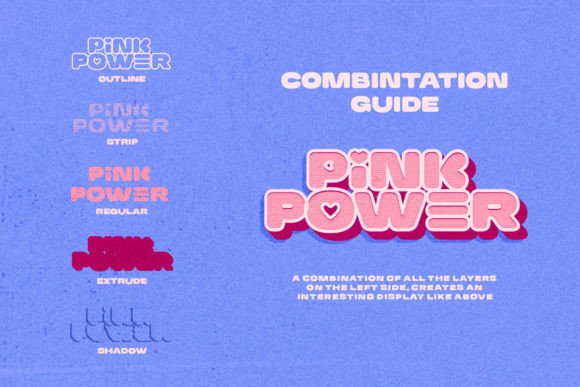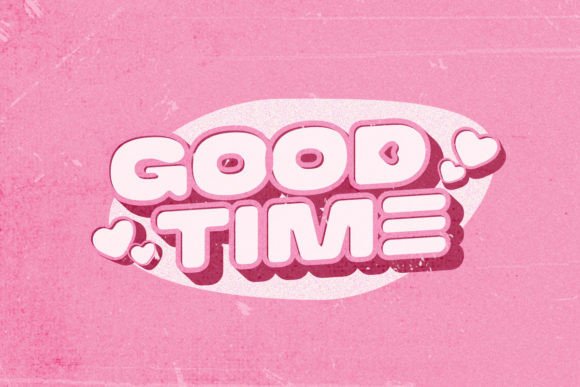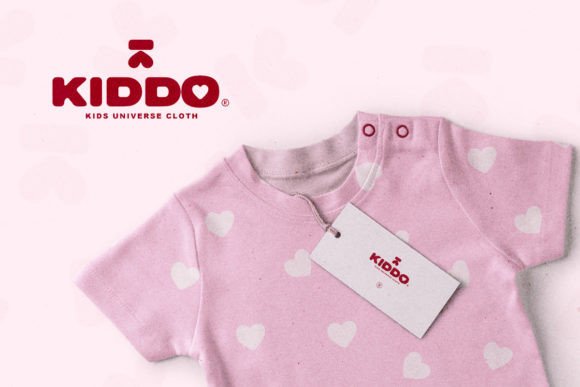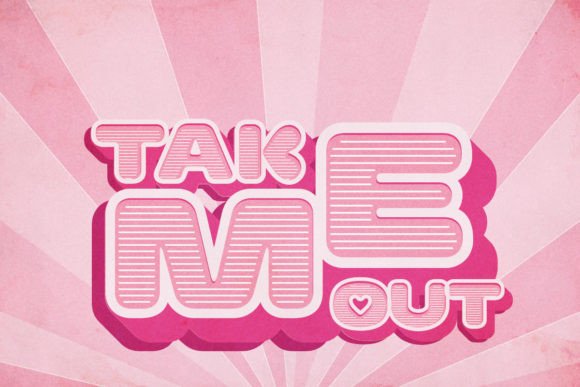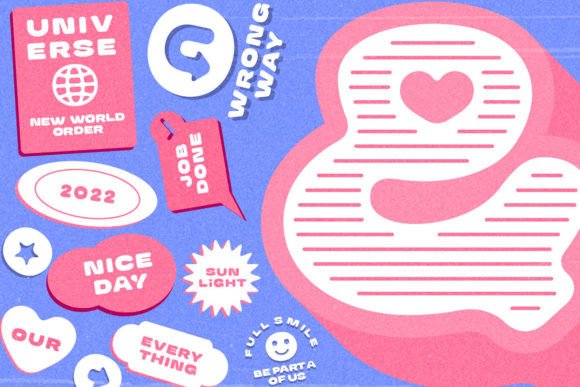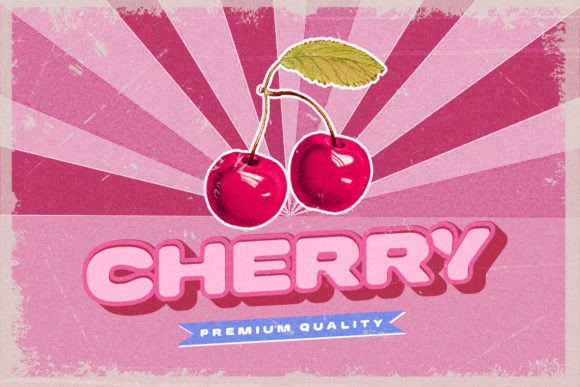
Introduction to Pink Power Font
Have you ever found yourself in the midst of a creative project, struggling to find the perfect font to bring your vision to life? I know I have! As a designer, I’ve spent countless hours scouring the web for that one elusive font that will elevate my design from good to great. And then, like a ray of sunshine on a cloudy day, I stumbled upon the Pink Power Font.
This stunning 3D retro font sans-based is a game-changer for any design project. With its layered styles and icons, the Pink Power Font offers a unique and eye-catching look that’s sure to grab attention. Whether you’re working on a poster, branding, merchandise, or any other retro-style project, this font is a valuable resource that’s sure to deliver high-quality results.
Key Features of Pink Power Font
- Unique Pink Power Font design with a bold, eye-catching aesthetic, perfect for creative projects and designs.
- Perfect for use in various creative projects, such as logos, business cards, posters, and more, due to its modern and trendy design.
Honest Review: Pink Power Font
As a designer, I’m always on the lookout for unique and versatile design resources to elevate my creative projects. Recently, I had the chance to try out the Pink Power Font, and I’m excited to share my honest review with you.
What works well: ✨ The font is incredibly bold and eye-catching, making it perfect for creating attention-grabbing headlines and titles. The high-quality design ensures that it looks great on both digital and print materials. I also appreciate the fact that it comes with a transparent background, allowing for seamless integration with other design elements.
What’s not so great: ⚠️ While the font is free to download, the limited character set may be a drawback for some designers. Additionally, the font may not be suitable for small text sizes, as the boldness can become overwhelming.
Overall impression: I’m really impressed with the Pink Power Font, and I can see it being a valuable addition to any designer’s toolkit. Its bold, high-quality design makes it perfect for a wide range of creative projects, from marketing materials to social media graphics. If you’re looking for a free design resource that packs a punch, I highly recommend giving the Pink Power Font a try.
- Perfect for bold, eye-catching headlines and titles
- High-quality design for digital and print materials
- Limited character set
- Not suitable for small text sizes
Tips for Getting the Most Out of the Pink Power Font
Use the Pink Power Font on a transparent background to create a striking visual effect. Experiment with different font sizes and styles to add depth and interest to your design.
The Pink Power Font is ideal for social media graphics, branding materials, and promotional materials. Its high-quality design makes it a great addition to any creative project.
Q: Is the Pink Power Font high quality and suitable for professional use?
Yes, the Pink Power Font is a high-quality design resource that is suitable for professional use. The font has been carefully crafted to ensure that it is clear, readable, and visually appealing. With its modern design and versatility, the Pink Power Font is an excellent choice for designers working on creative projects that require a unique and eye-catching font.